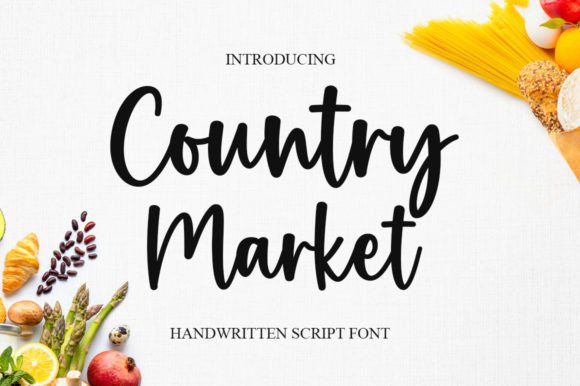
Welcome to the realm of rustic charm, where elegance dances with a touch of whimsy. Enter the world of Country Market, a script font family crafted with the allure of a bygone era. Its delicate strokes and flowing curves evoke the tranquility of a countryside retreat, inviting you to embrace the warmth of nostalgia.
With Country Market, your designs will exude a timeless charm. Its characters, balanced with impeccable precision, create a visual symphony that harmonizes perfectly with wedding invitations, thank-you cards, heartfelt quotes, and enchanting greeting cards. It's a font that speaks volumes, transforming ordinary words into captivating tales.
Envision your creations adorned with Country Market's finesse. Your logos will radiate a distinct identity, reflecting a deep connection to nature's embrace. Business cards will emanate professionalism, exuding an air of sophistication that sets you apart. And as you craft social media designs, Country Market will weave a tapestry of visual delight, drawing your audience into a world of rustic elegance.
But Country Market's allure extends far beyond these conventional applications. Its versatility shines in the world of branding and marketing. Imagine a farm logo imbued with the essence of Country Market's organic beauty. Its curves will evoke images of sun-kissed fields and blooming meadows, creating an instant emotional connection with your audience. Or picture a restaurant menu adorned with Country Market's grace, inviting diners to embark on a culinary adventure filled with rustic charm.
With Country Market, your designs will resonate with a touch of history, a whisper of nostalgia, and a burst of contemporary style. It's a font that transcends time, bridging the gap between tradition and modernity. Let Country Market be your muse, transforming your creative visions into captivating masterpieces that capture hearts and leave a lasting impression. Embark on a journey of timeless elegance, where beauty and charm intertwine seamlessly.